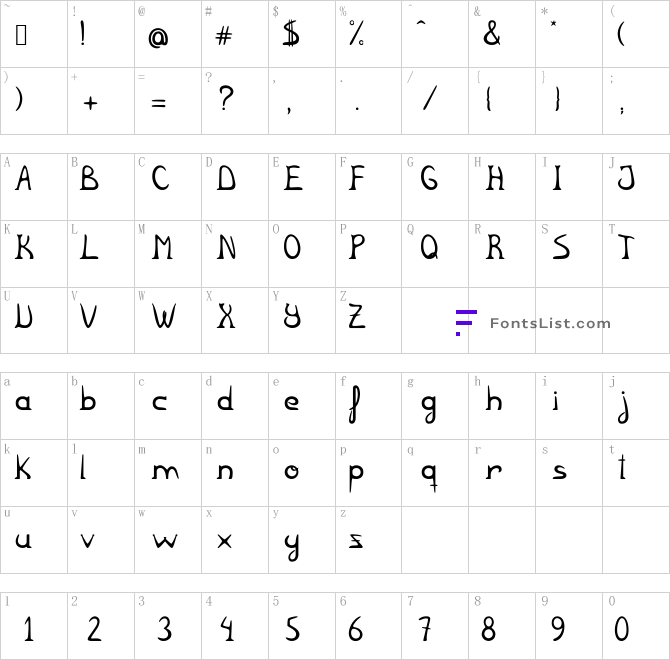
- Font Name:caracol
caracol.ttf is a very beautiful artistic font, caracol.ttf is widely used in the design and printing of various books and pictures,caracol.ttf has a strong visual impact,caracol.ttf is a commonly used font in newspapers, magazines and books, and is used in posters, e-commerce Poster design, store design, logo design, font design and other fields.caracol.